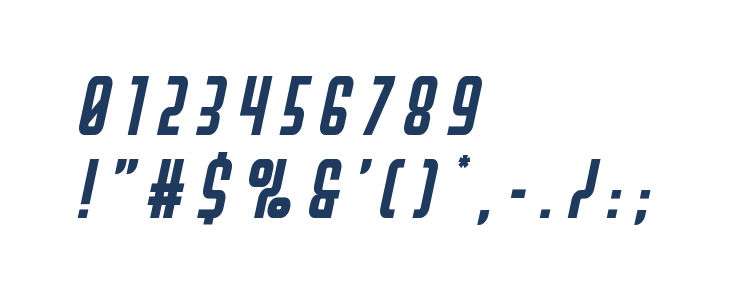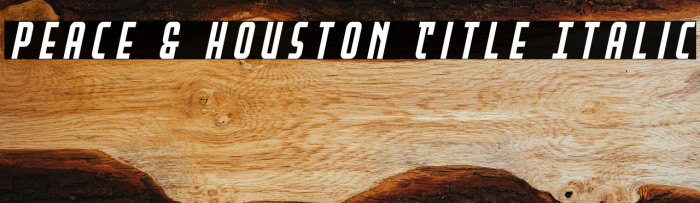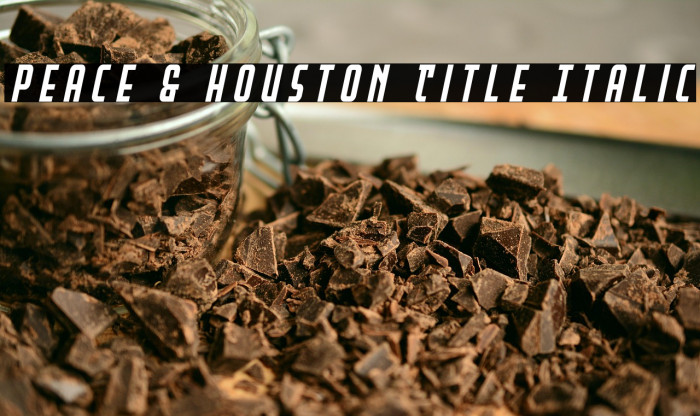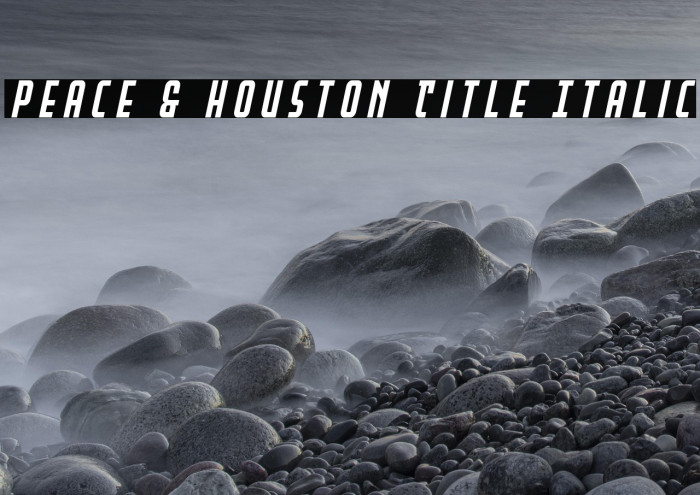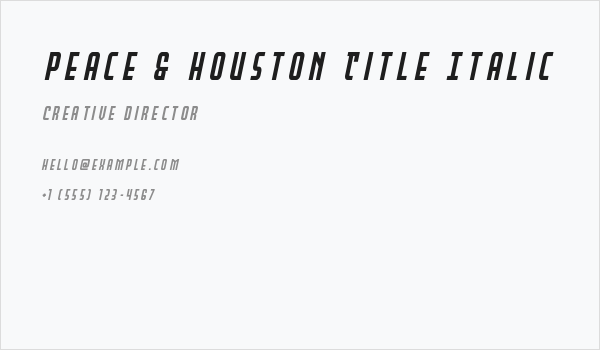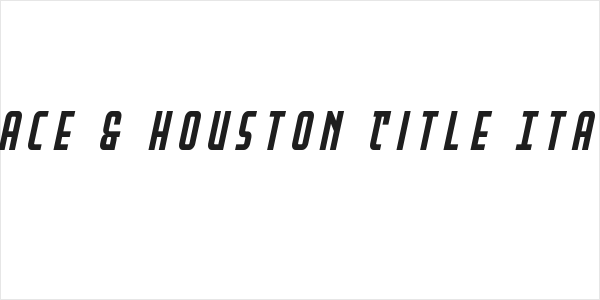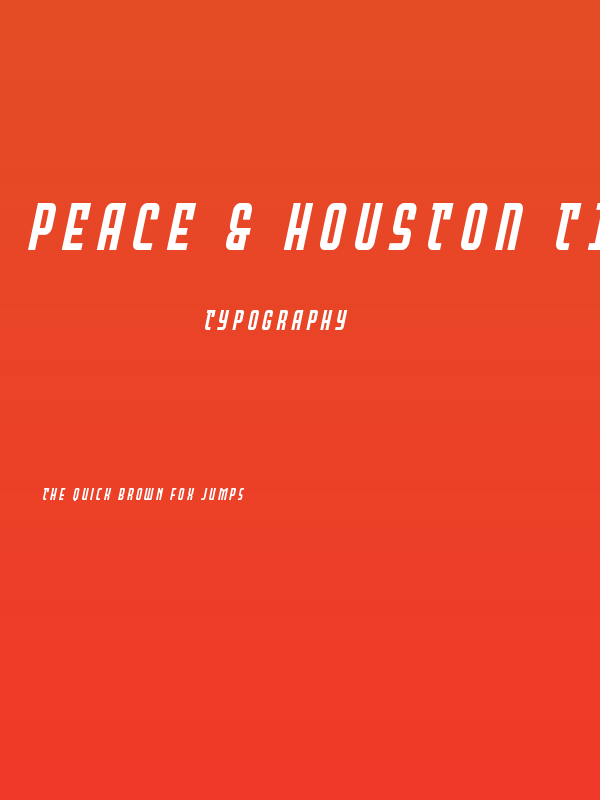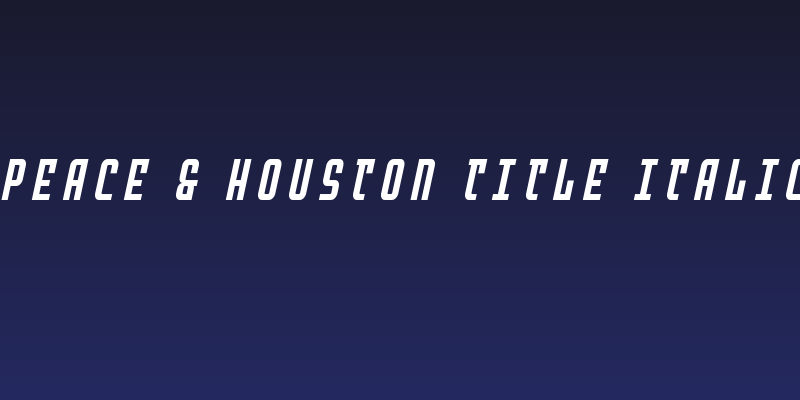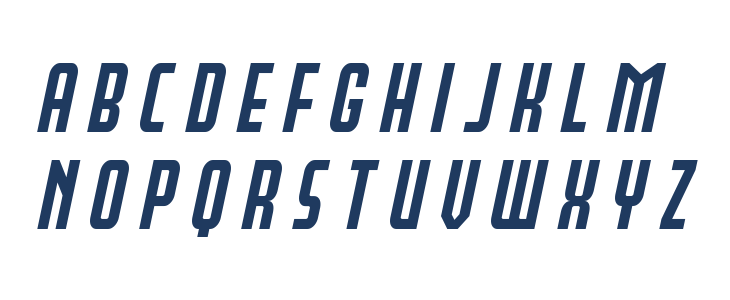
Peace & Houston Title Italic Font
Peace & Houston Title Italic Description
This font features a bold, italicized style with a modern and dynamic appearance. The characters are slightly condensed, giving it a sleek and streamlined look. The strokes are consistent in weight, providing a uniform and cohesive feel across all letters and numbers. The angular design of the characters adds a sense of movement and energy, making it suitable for attention-grabbing headlines and titles. The font includes a full set of uppercase and lowercase letters, numerals, and a variety of special characters, ensuring versatility in design applications.
| Proposed Projects | Ideal for sports branding, dynamic posters, modern advertising, and impactful headlines. |